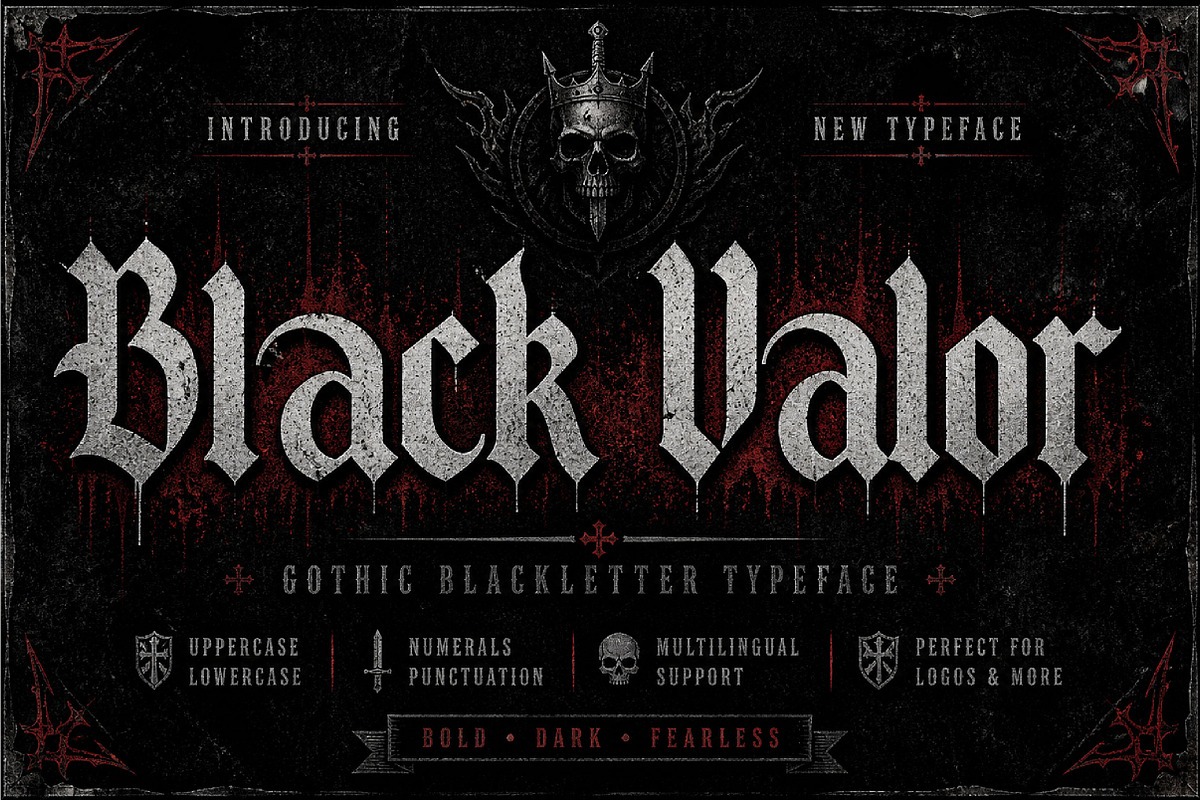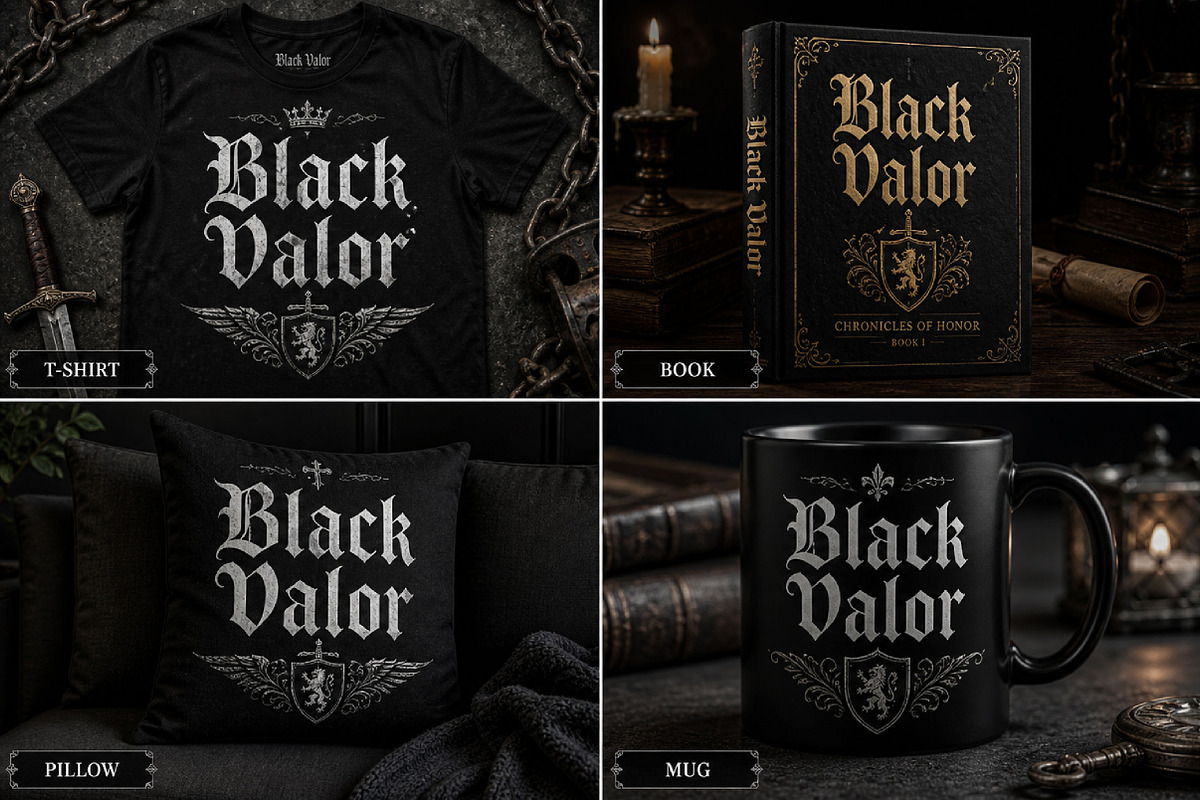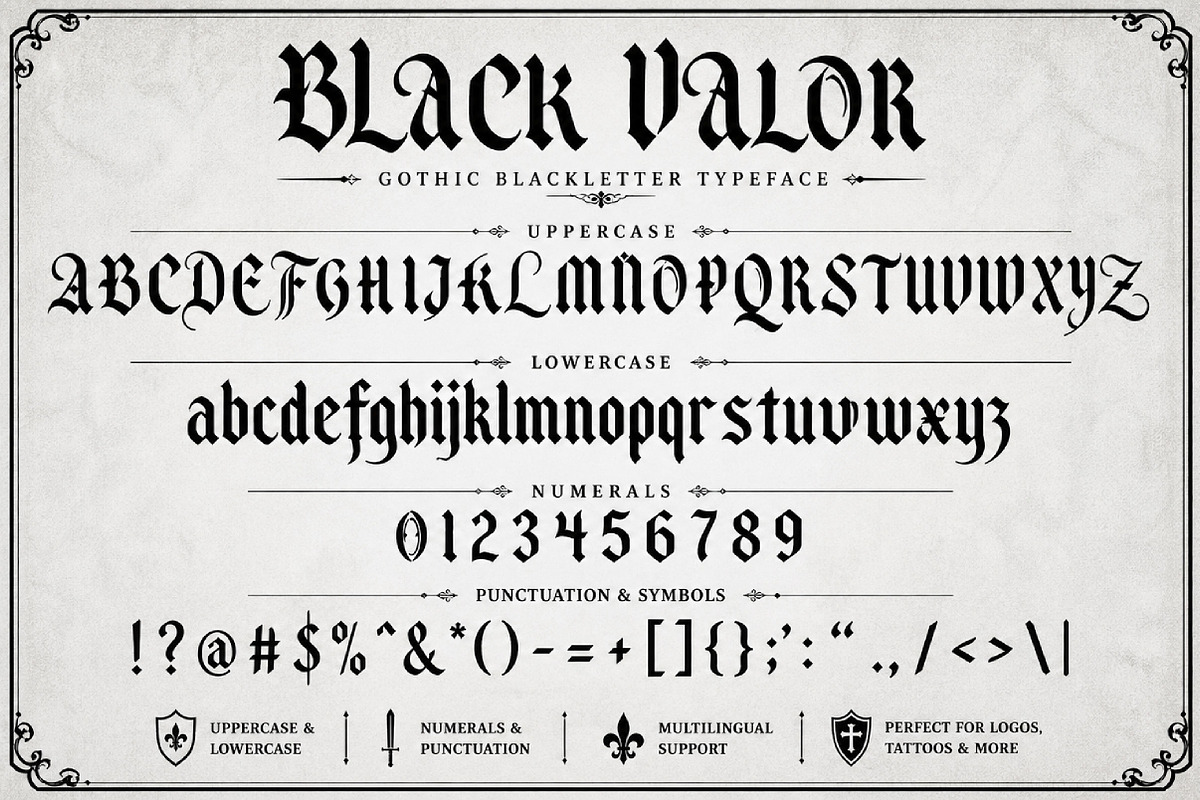
Black Valor
Black Valor – Gothic Blackletter Display Font
Black Valor is a bold, sharp, and powerful blackletter font, perfect for gothic designs, logos, posters, branding, tattoos, and vintage-inspired creative projects.
Black Valor is a strong blackletter display font inspired by classic gothic and Old English typography. With its sharp edges, bold vertical strokes, and dramatic letterforms, this font creates a commanding and timeless look that stands out instantly.
Its intense and authoritative style makes Black Valor perfect for projects that need a bold and historic visual identity. Whether you are designing logos, posters, album covers, tattoo-style graphics, apparel, packaging, or editorial headlines, this font delivers a striking and confident typographic presence.
The clean yet ornamental structure ensures readability while maintaining a classic gothic aesthetic. Suitable for both print and digital use, Black Valor is ideal for designers who want a font that feels powerful, vintage, and highly distinctive.
Gothic and medieval designs
Old English typography
Logos and branding
Posters and headlines
Album covers
Tattoo-style graphics
Apparel and merchandise
Packaging design
Editorial titles
Statement display typography
Uppercase letters
Lowercase letters
Classic blackletter style
Sharp and bold letterforms
Dramatic and powerful appearance
Perfect for display use